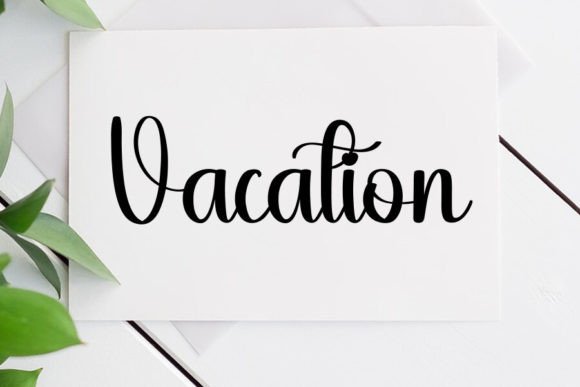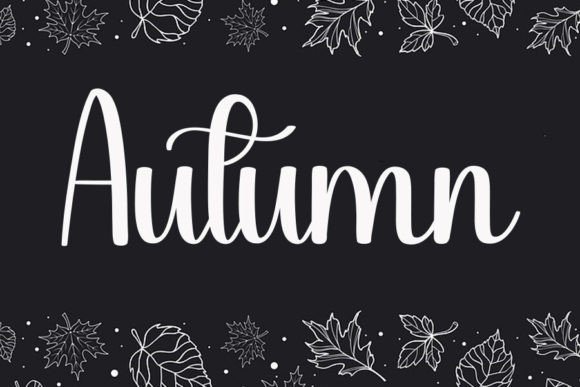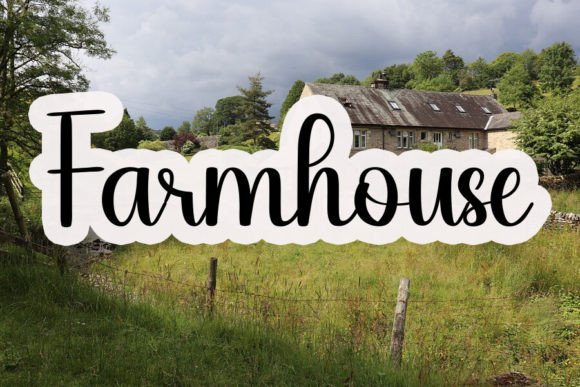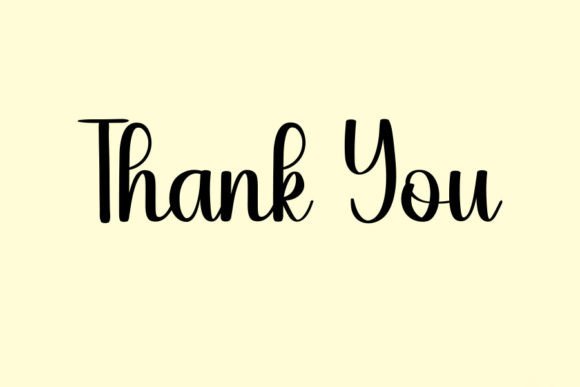
Meet Your New BFF: Baby Font
You know that moment when you stumble upon the perfect font and it just feels like home? For many designers, that moment is exactly what they’re looking for in a font. And, trust us, Baby Font is about to become your new best friend in the world of typography.
Baby Font is a playful, handwritten font designed to bring a touch of whimsy and warmth to any project. Whether you’re crafting a birthday card, creating a digital presentation, or designing a handmade gift, Baby Font is the perfect companion to help you express your creativity. With its friendly and approachable feel, this font is sure to become a go-to choice for designers of all levels.
- Unique Characteristics: The font features a playful, cursive design with rounded edges and smooth lines, making it perfect for creating a friendly and approachable atmosphere in branding, advertising, and editorial content.
Baby Font Review
Overall, I think “Baby Font” has some great qualities that make it a decent choice for certain projects. ✨ One of the things I like is its playful and cute aesthetic. It’s perfect for kids’ educational materials, nursery decor, or even some branding projects. The font is also highly legible, making it easy to read, even for younger audiences.
Another advantage of “Baby Font” is its versatility. It comes in a variety of weights and styles, allowing you to customize it to suit your needs. This range of options makes it a great choice for designers who want to create visually appealing and consistent designs.
- ⚠️ Limited to a specific niche: As cute as it is, “Baby Font” might not be the best choice for more formal or professional projects. Its playful nature might come across as unprofessional in certain contexts.
- ⚠️ Not ideal for long blocks of text: While “Baby Font” is legible, it’s not the most efficient font for large blocks of text. It can get tiring to read, especially in longer passages.
Overall, I think “Baby Font” is a solid choice for designers who are looking for a cute and playful font. It’s perfect for projects that require a lighthearted and child-friendly aesthetic. However, it might not be the best choice for more complex or formal projects.
Use ‘Baby Font’ for titles, headings, and emphasis in children’s educational materials, nursery decor, and baby-related branding.
For best results, use in conjunction with pastel colors and soft graphics.